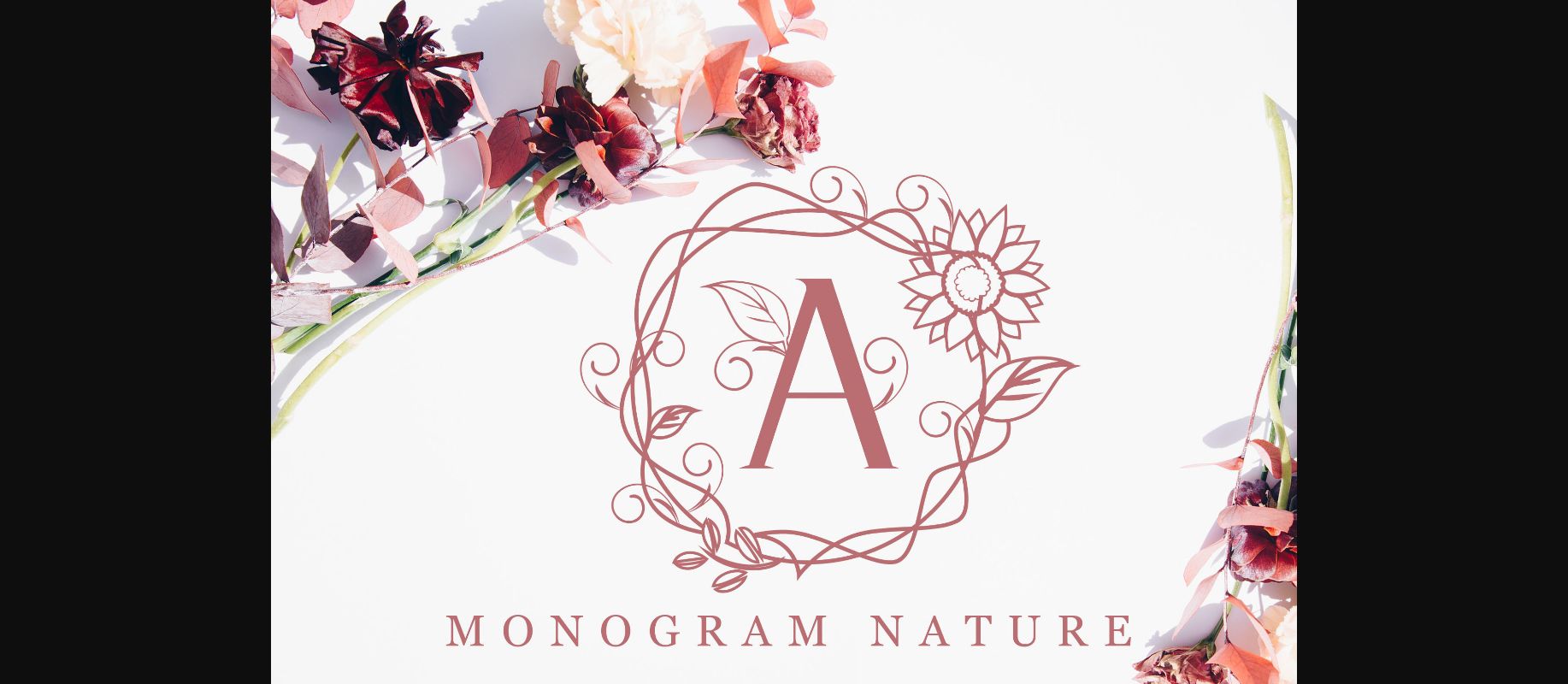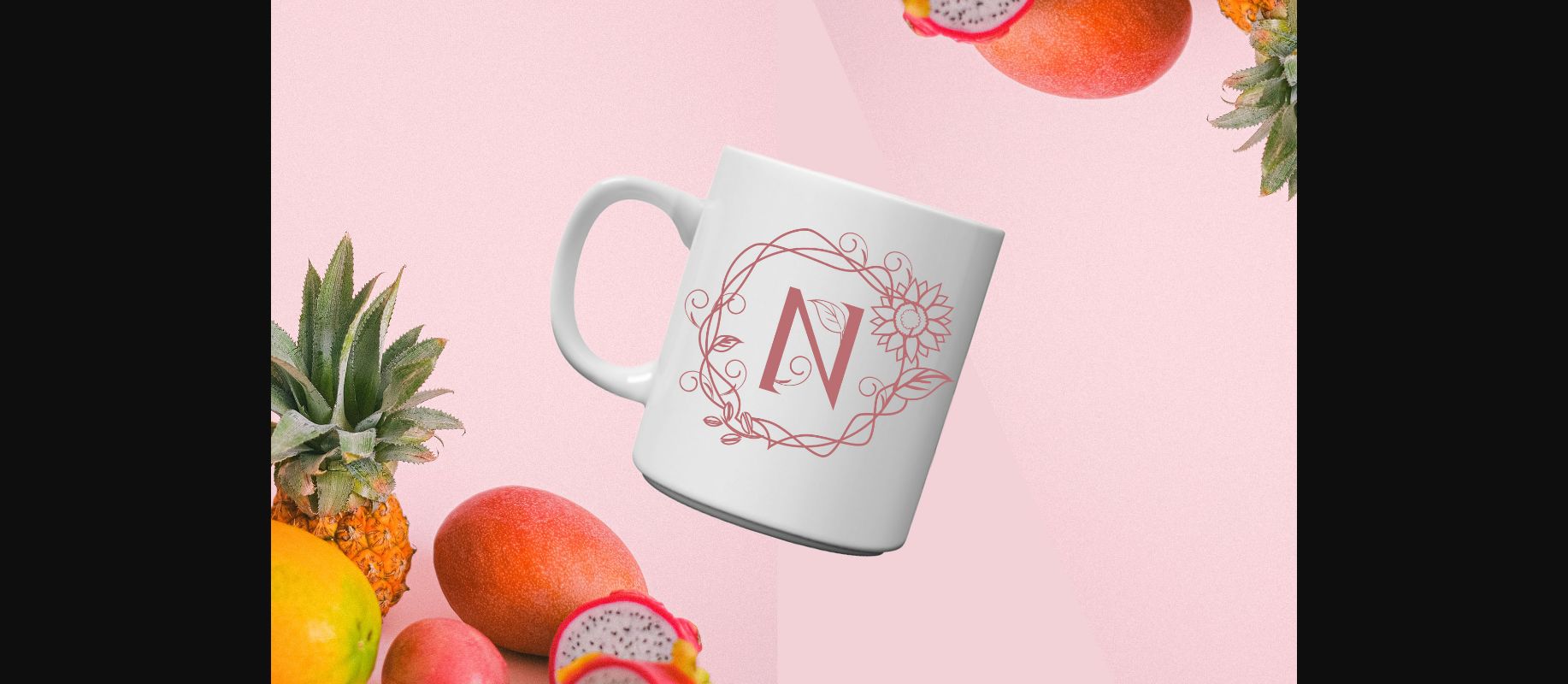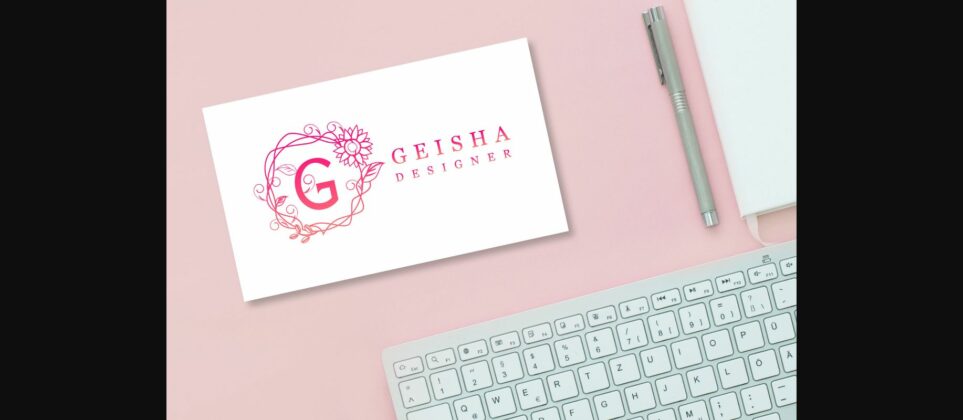
About Monogram Nature Font
Monogram Nature is a beautiful and elegant decorative font. Fall in love with its incredibly versatile style and use it to create gorgeous wedding invitations, beautiful stationary art, eye-catching social media posts, and much more!